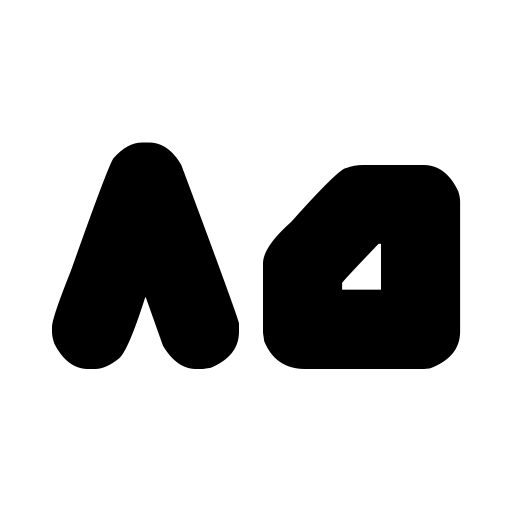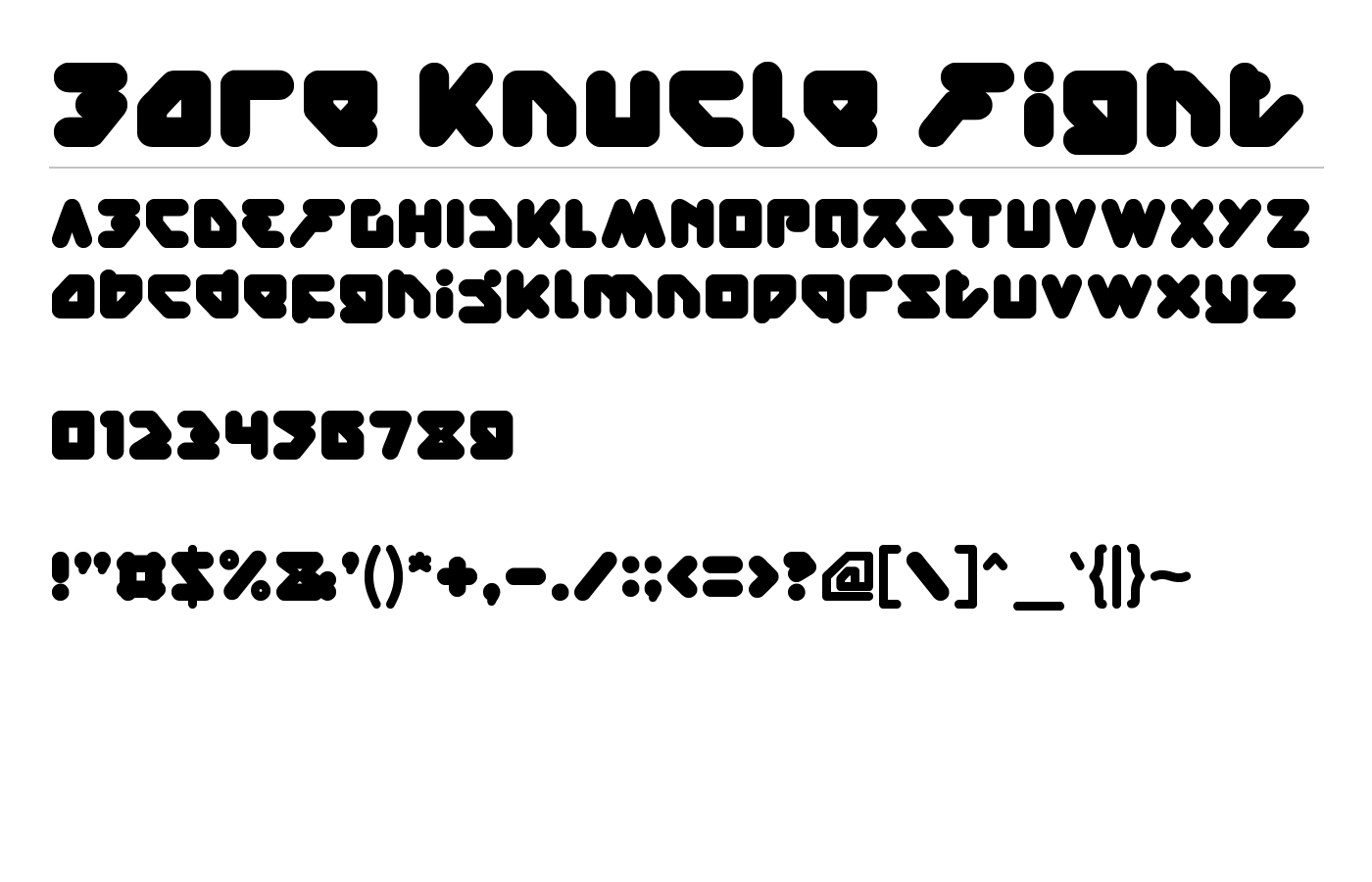
Bare Knuckle Fight is a bold, chunky sans serif font with a playful yet rugged personality. Its blocky, rounded forms and tight spacing give it a strong visual impact, making it perfect for attention-grabbing headlines, logos, and posters with an edgy or street-style vibe. This font works well for brands and designs that want to convey toughness and fun simultaneously.
Bare Knucle Fight Font
About Bare Knucle Fight Font